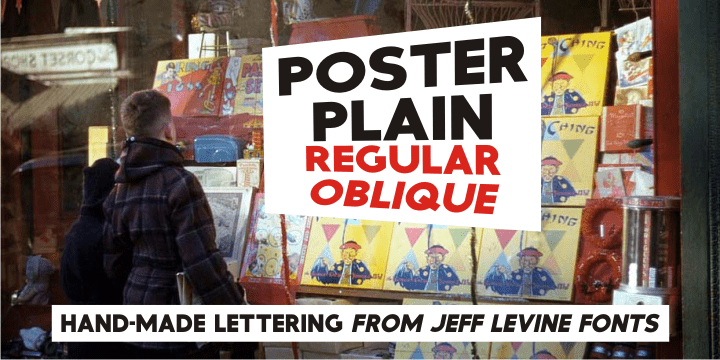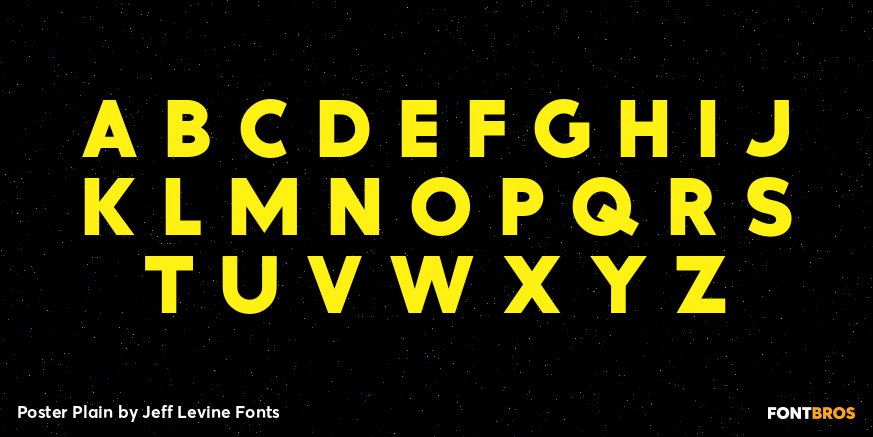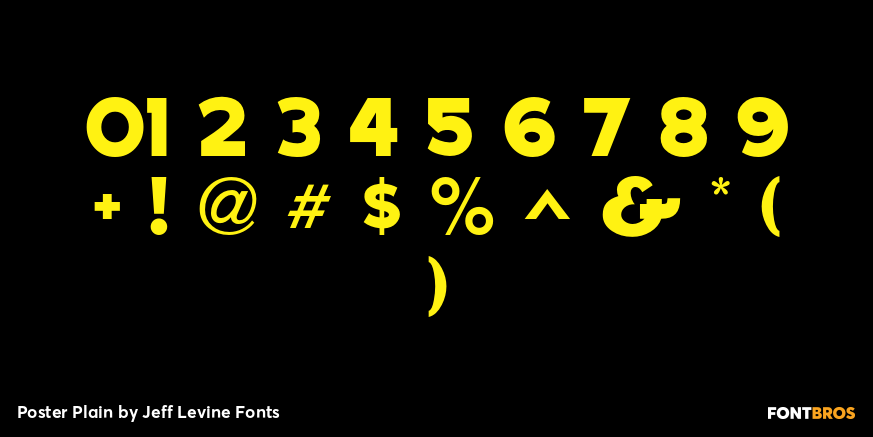
Poster Plain
Poster Plain JNL and its oblique counterpart offer the simple, hand-lettered look of home-made poster board projects with a bold, friendly typeface.